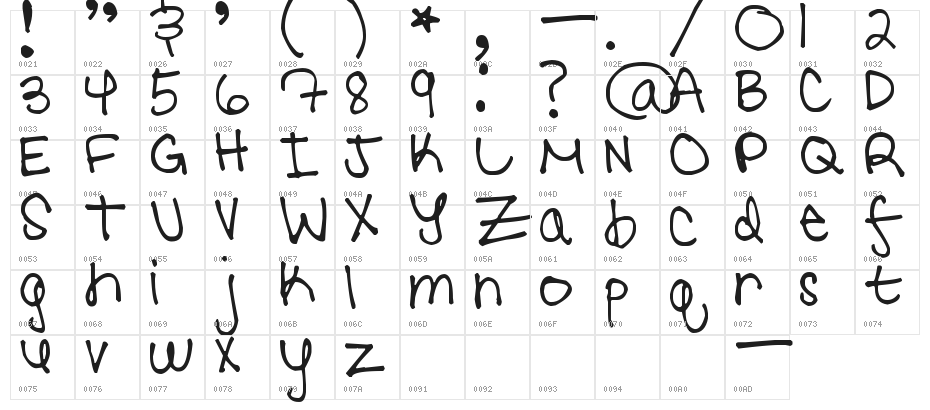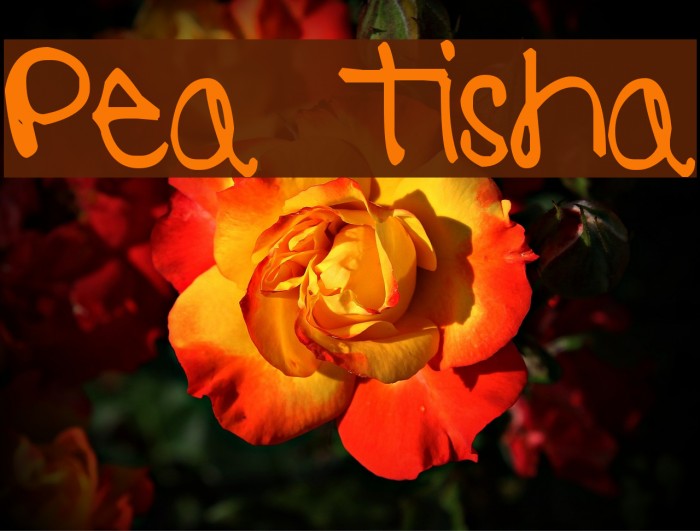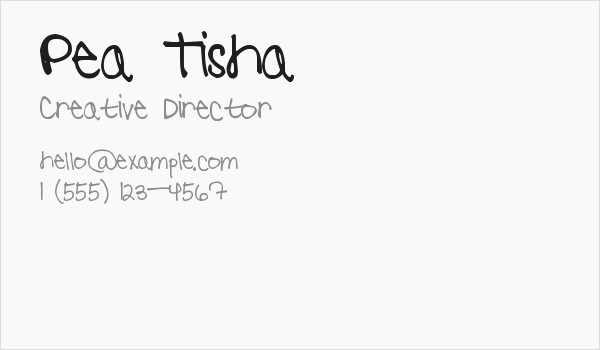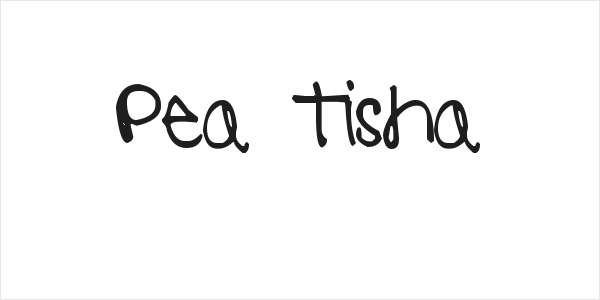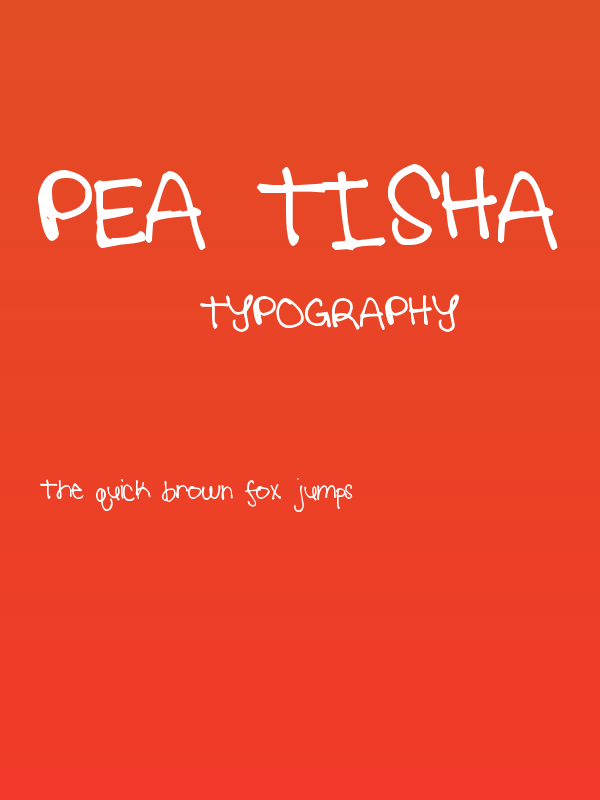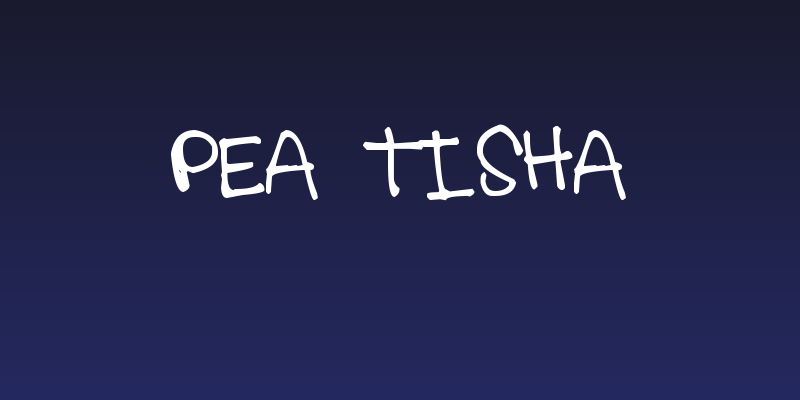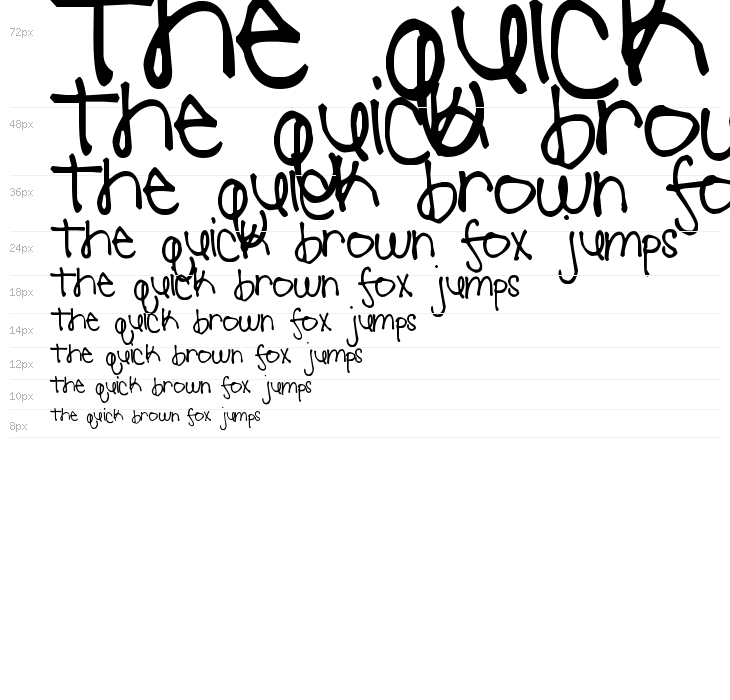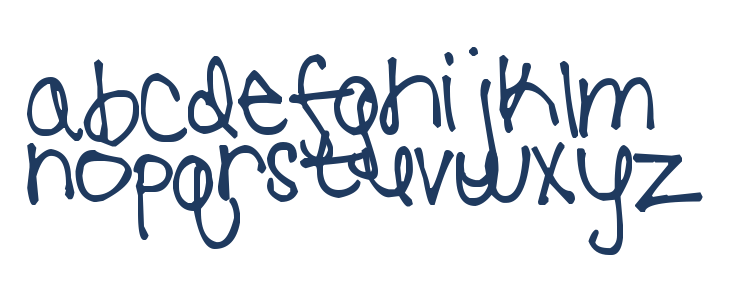
Pea Tisha Font
Pea Tisha Description
This playful and casual handwritten font exudes a sense of whimsy and informality. The letters are crafted with a smooth, flowing style that mimics natural handwriting, giving it a personal and approachable feel. The strokes are moderately thick, providing a bold appearance without being overpowering. The characters are slightly irregular, adding to the charm and authenticity of the handwritten effect. This font is versatile, suitable for projects that require a friendly and informal touch. Its legibility is maintained across both uppercase and lowercase letters, making it ideal for a variety of uses.
| Use Case | Headlines, Informal text, Personal projects |
| Proposed Projects | Ideal for greeting cards, personal notes, children's books, and casual branding. |